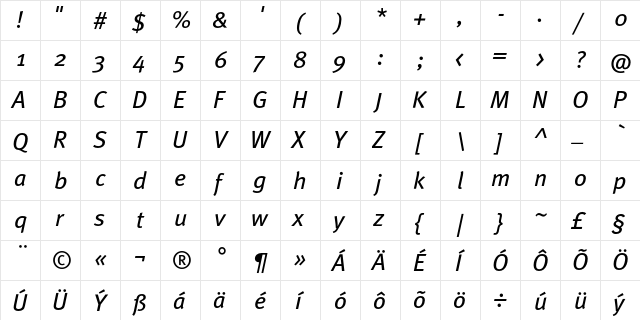
MetaBookCE Italic
Design Context for MetaBookCE Typeface
MetaBookCE is a composed and adaptable typeface that performs quietly and consistently across a wide range of design contexts. The slanted form adds forward momentum and visual energy.